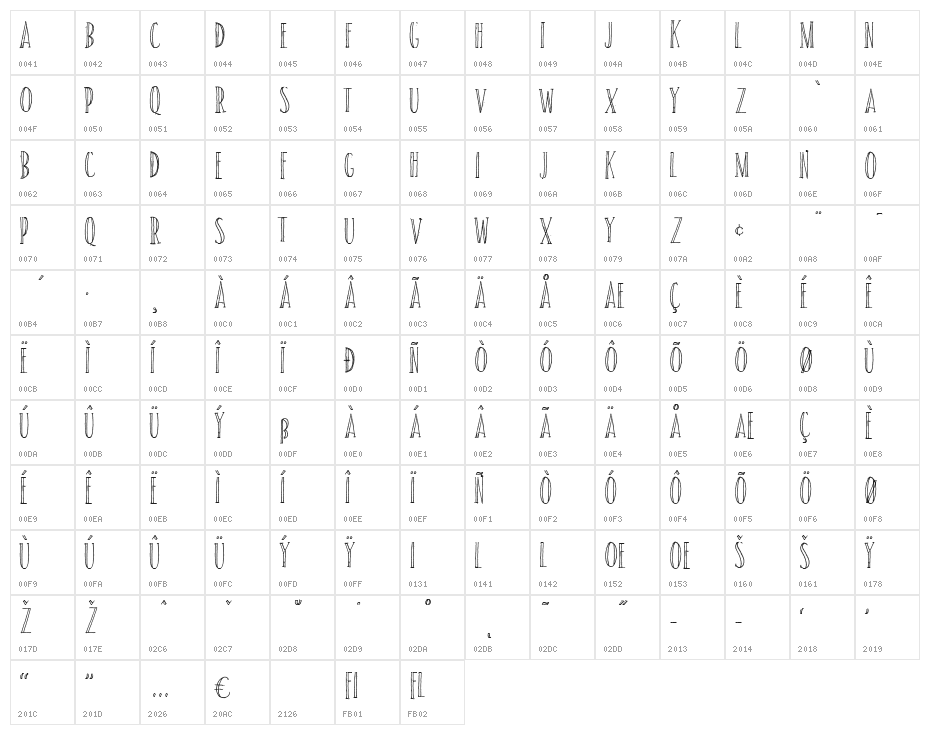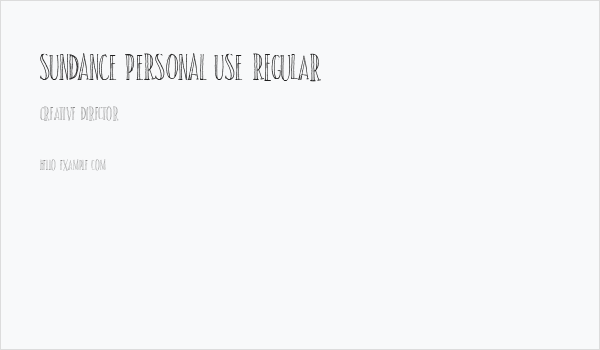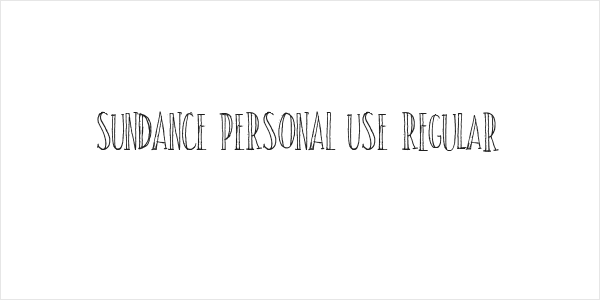
SUNDANCE PERSONAL USE Regular Font
SUNDANCE PERSONAL USE Regular Description
This font features a hand-drawn, sketch-like appearance with tall, narrow characters. The strokes are uneven, giving it a rustic and artistic feel. The uppercase letters are elongated, with a slight irregularity in line thickness, adding to its handcrafted charm. The style is reminiscent of vintage signage or posters, making it ideal for projects that require a touch of nostalgia or a personal, informal touch. The font's unique character is emphasized by its playful and slightly whimsical design, making it stand out in creative applications.
| Proposed Projects | Ideal for vintage posters, artistic projects, handmade crafts, and creative branding. |